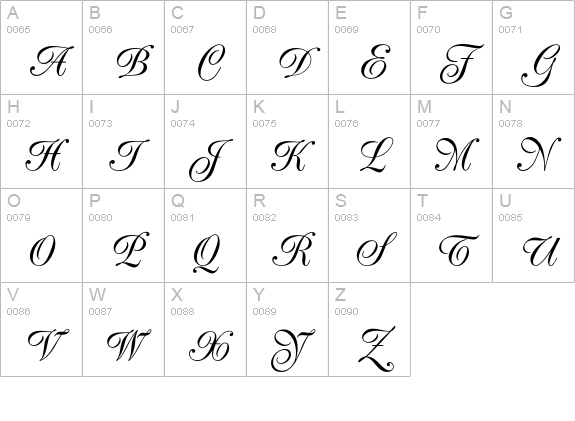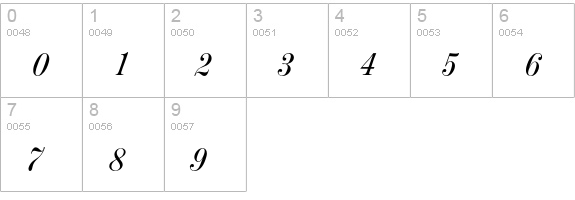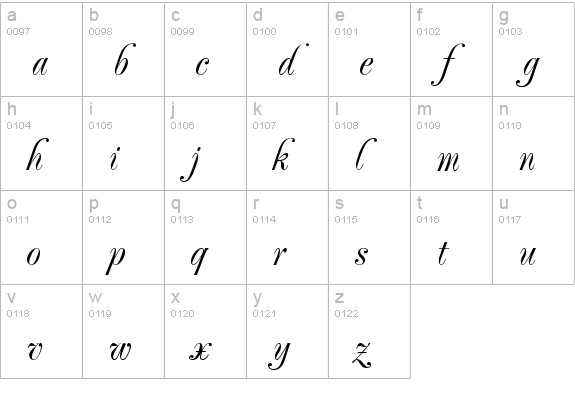
Poppl Exquisit BQ Regular is the standard, neutral variant in the Poppl typeface family \xE2\x80\x94 well suited to general body text, paragraphs, and standard typographic work.
Poppl Exquisit BQ Regular is a sophisticated and elegant font that exudes timeless charm and versatility. With its clean lines and classic design, this font is perfect for a wide range of projects, from branding to editorial design. Its balanced proportions and graceful letterforms make it a versatile choice for both display and text use. The best part? Poppl Exquisit BQ Regular is available for free download at FontsMarket.com. Whether you're a designer looking to add a touch of sophistication to your projects or a business owner in need of a refined font for your branding materials, this font is sure to impress. Download Poppl Exquisit BQ Regular today and elevate your designs with its timeless beauty.